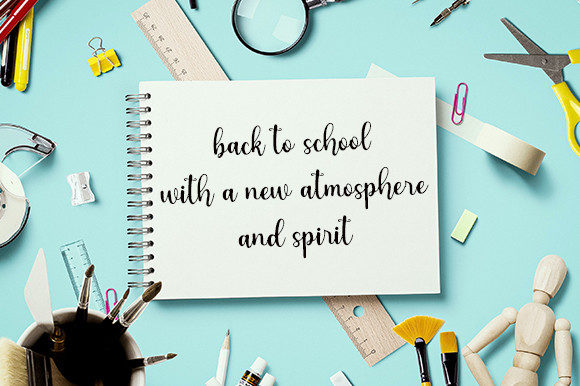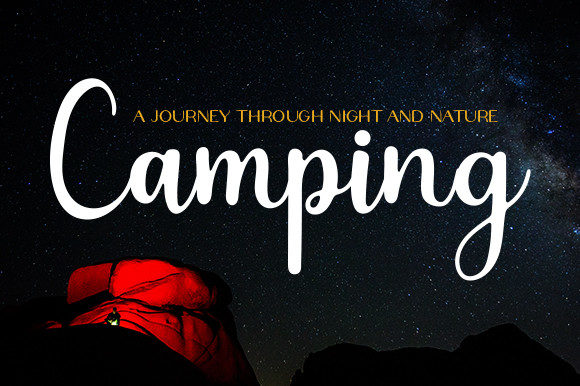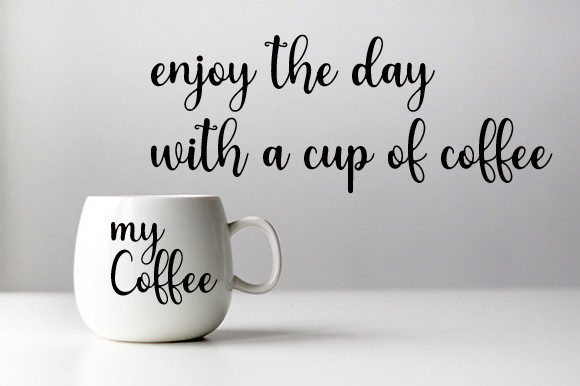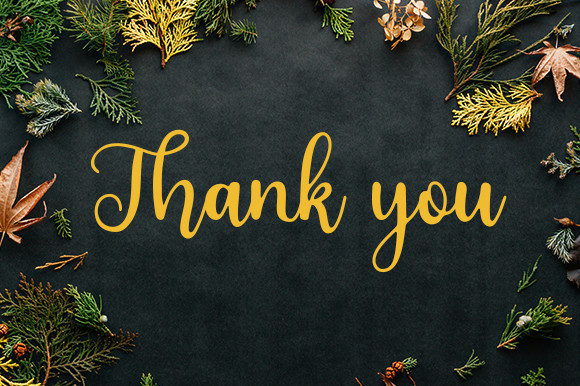
Shadow Font
About Shadow Font
Shadow font is a script-type font that was created by paying careful attention to every curve and distance between letters so as to produce a quality font that is perfect for your projects such as wedding invitations, t-shirt printing, brands, and much more.